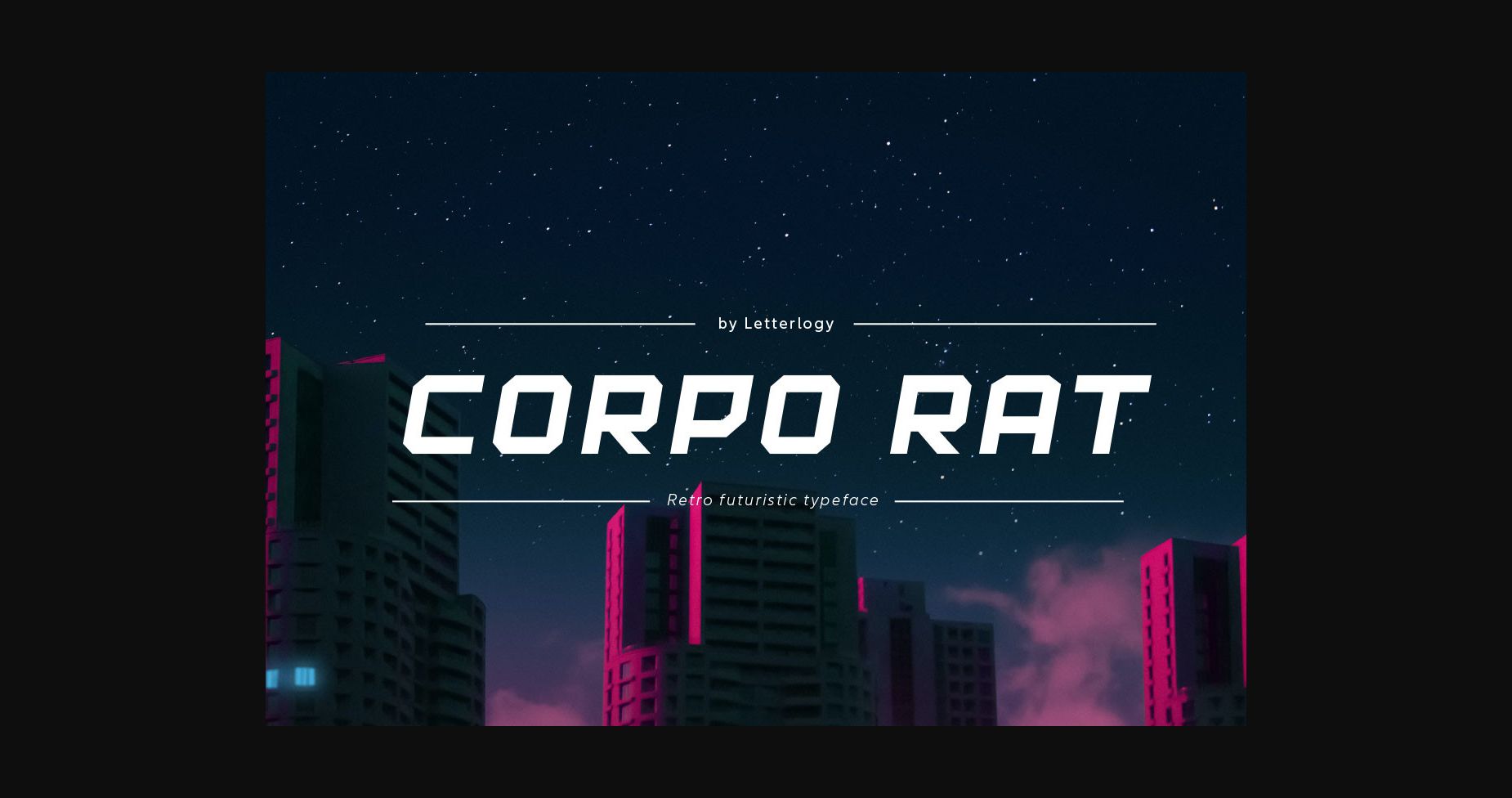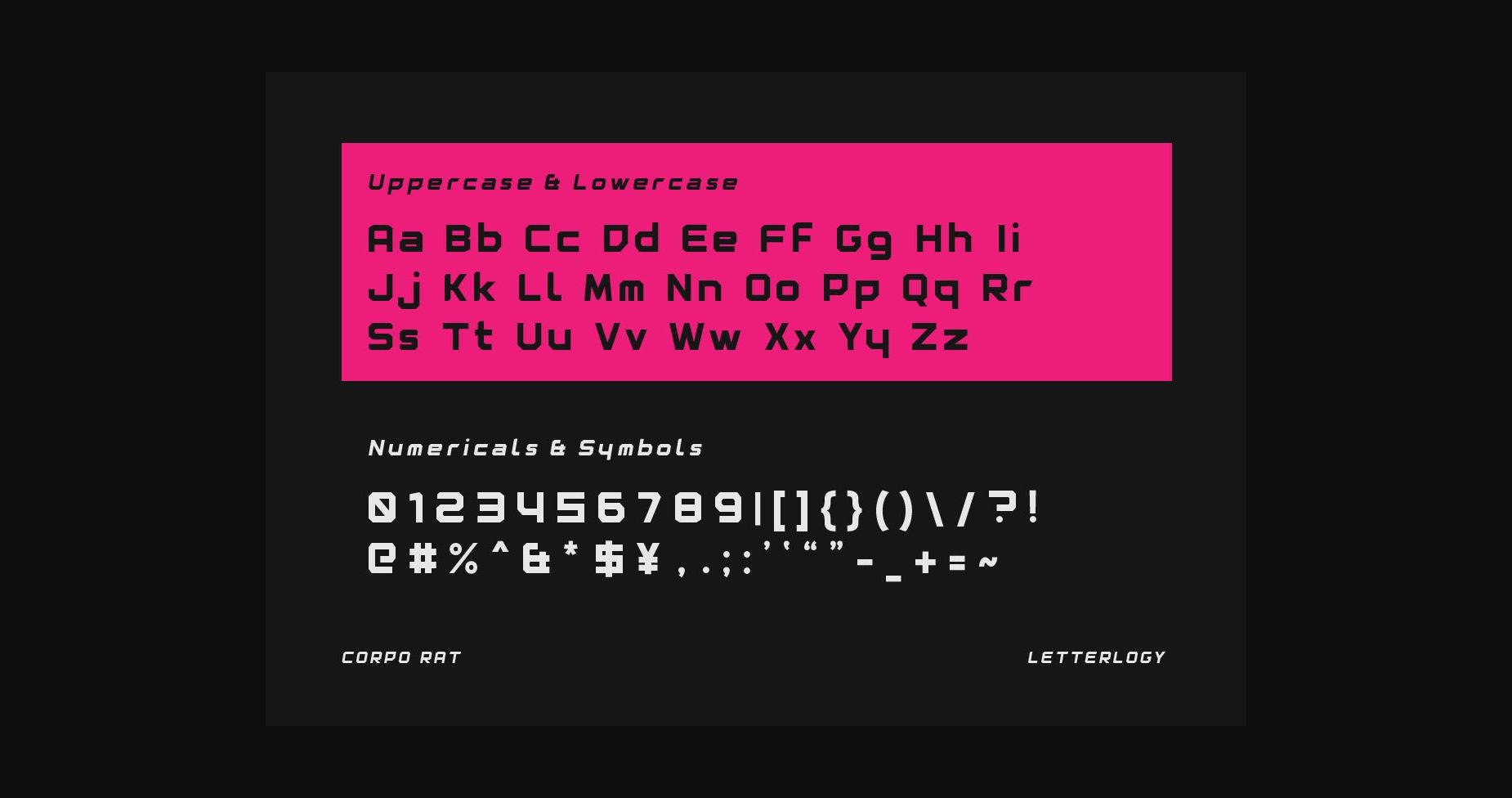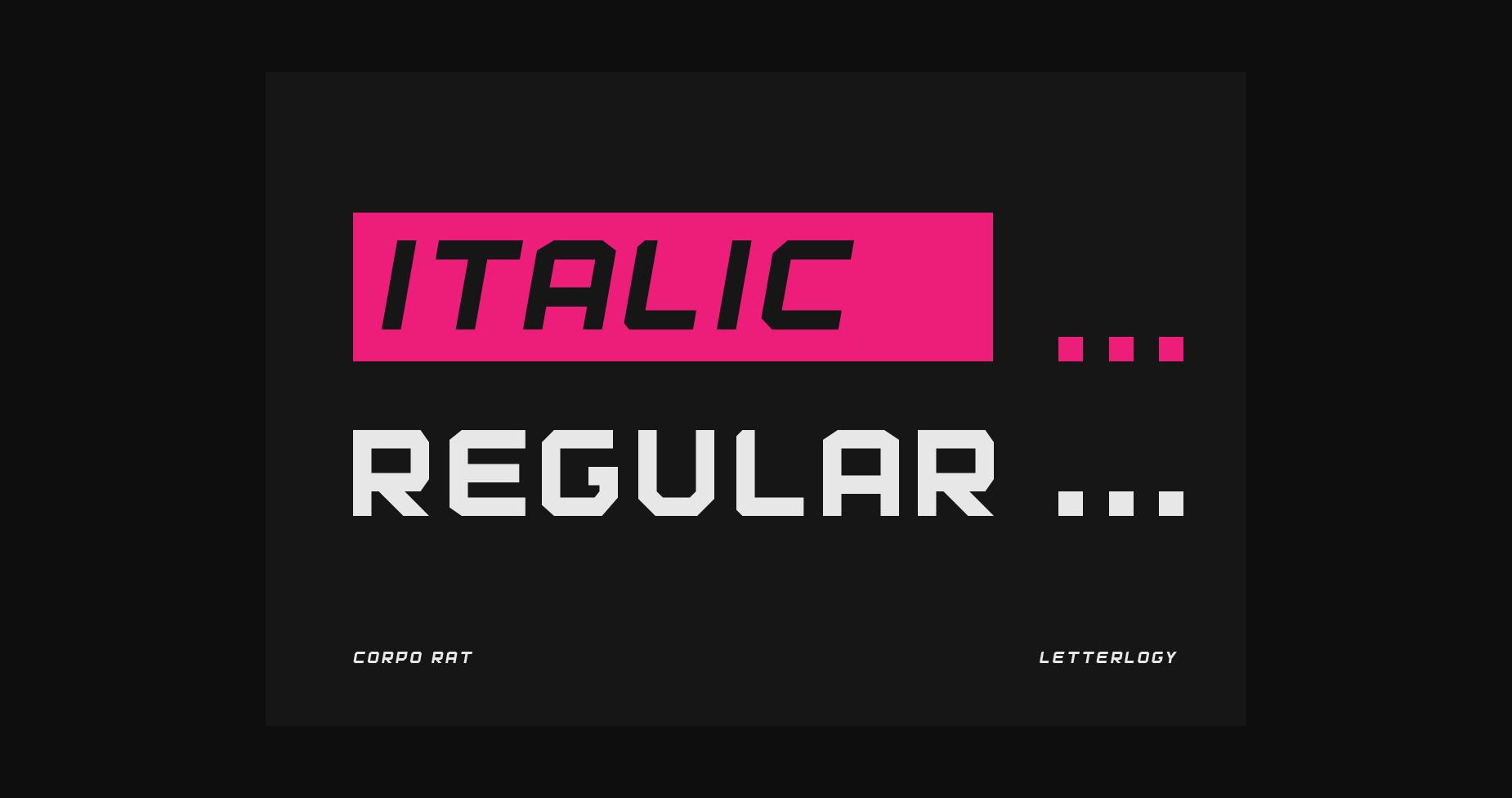
HomeSans Serif FontsCorpo Rat Font Sans Serif Fonts Corpo Rat Font FacebookXPinterestWhatsApp 1 of 5 ... Corpo Rat Font Poster 2... Corpo Rat Font Poster 3... Corpo Rat Font Poster 4... Corpo Rat Font Poster 5... About Corpo Rat Font Corpo Rat is a retro-futuristic sans serif font inspired by the 1980s & 1990s era depiction of a dystopian sci-fi future. This font is the perfect choice to give your various design projects a true retro sci-fi aesthetic. DOWNLOAD NOW People also explored Chubby Font Honey Font Sweet Magnolia Font Eagle Font Friendship Font Andreus Font Almety Font 4th July Font Candy Butterfly Font 408 0 TagsCorpo Rat Font Previous articleMalan Pro FontNext articleGiane Gothic Sans Font LEAVE A REPLY Cancel reply Comment: Please enter your comment! Name:* Please enter your name here Email:* You have entered an incorrect email address! Please enter your email address here Website: Save my name, email, and website in this browser for the next time I comment. Personal Use Free Karmatic Arcade Personal Use Free Read more about this font Adelfa Personal Use Free Read more about this font Blue Highway Personal Use Free Read more about this font Amellis Path Personal Use Free Read more about this font BLOG How to Cut Any Font on Cricut: Convert a Font to SVG (Free) Turn any font into a clean SVG so it cuts crisp on Cricut - a quick 3-step workflow using a free font-to-SVG tool. Modern Sans-Serif Fonts That Brands Love in 2025 Top 7 Google Fonts Alternatives for Faster and Privacy-Friendly Web Design (2025) Free vs Paid Fonts: Why Investing in Premium Fonts Is Worth It